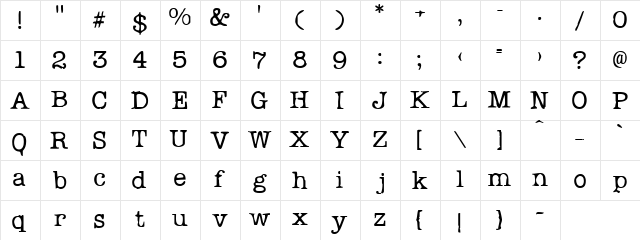
Problem Secretary Normal Problem Secretary Normal
Design Context for Problem Secretary Normal Typeface
Problem Secretary Normal takes a measured approach to typography — its balanced proportions and neutral character make it a reliable workhorse for both digital and print work.
Pro Tip: Use Problem Secretary Normal in both headline and body roles to test its range before committing to a single application.